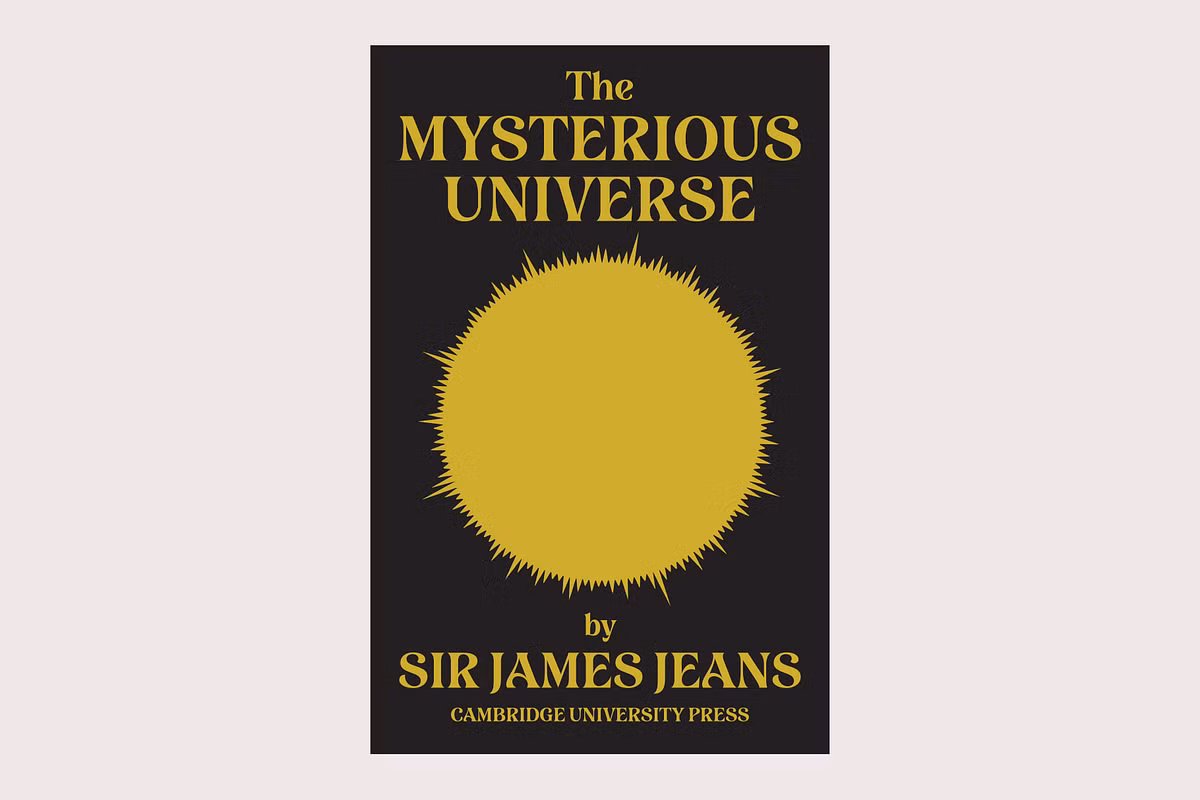
Lovechild: Innovative Typeface for Creative Typography Projects
Here is Lovechild, a font that can lift your typography work. Lovechild mixes the art style with the features that designers need. Lovechild fits in the designers toolbox. When you make a logo design a poster or build brand material Lovechild can help you stand out in the world.
Lovechild has a nice design. Lovechild uses shapes and smooth curves. These shapes give an inviting look. Lovechild keeps the letters readable and adds personality so Lovechild works for headings and, for text.
- Playful Curves: The rounded edges give a vibe. I notice the rounded edges make the design feel warm.
- The Detail: The small touches add elegance.
- Versatile Weight Variations: Available in multiple weights to suit different design needs.
Character Sets
Lovechild has the large character set that supports languages and font needs. The inclusivity helps your designs reach an audience. The character set includes:
- Uppercase and lowercase letters
- Numerals and punctuation marks
- Special characters and ligatures
Lovechild has the set of characters. I use Lovechild for my typography projects. Lovechild opens options, for me. Lovechild lets me create the text that looks good and fits the meaning. The result feels right, for the content.
Lovechild is flexible. In my work I find Lovechild helps with the design projects. Below are some use cases for Lovechild:
- Branding: I have used Branding for the logos. I have used Branding for the branding projects that need a touch.
- Editorial Design: I think editorial design is perfect, for magazines, books and other printed materials. Editorial design works best when creativity is the key.
- Digital Media: Works beautifully in web design and social media graphics.
When you add Lovechild to your projects Lovechild makes your typography catch the eye. Lovechild also helps your typography tell your message clearly.